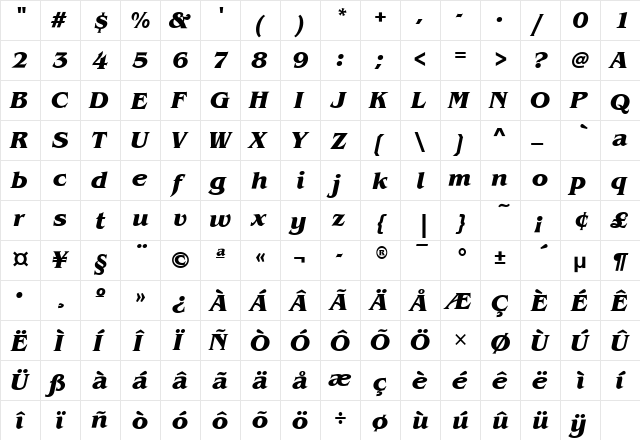
BenguiatITC Bold Italic
Design Context for BenguiatITC Typeface
BenguiatITC offers clean, dependable letterforms without strong stylistic allegiance, making it a practical choice for designers who need flexibility. Its italic angle brings a sense of urgency and motion to the letterforms. Its bold stroke weight gives it real presence on the page.
Pro Tip: Use BenguiatITC for emphasis, pull quotes, and subheadings where its slanted energy can add rhythm to the layout.